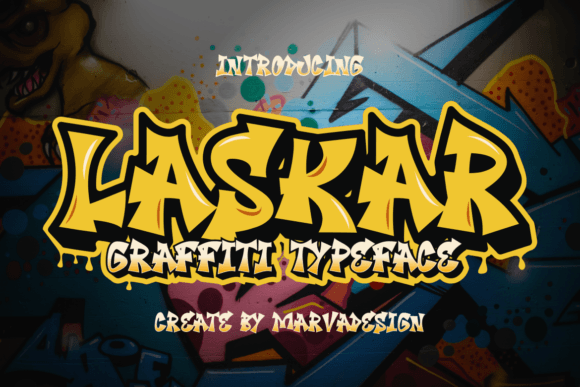
Introduction to Laskar Font
Laskar is a cool and modern graffiti font inspired by urban street art.
👤 Author Marvadesign
With bold strokes and a stylish edge, it brings the energy of the city to your designs Perfect for adding an urban vibe to posters, logos, and streetwear, Laskar captures the essence of contemporary street culture.
Key Features of Laskar Font
Why Choose Laskar Font?